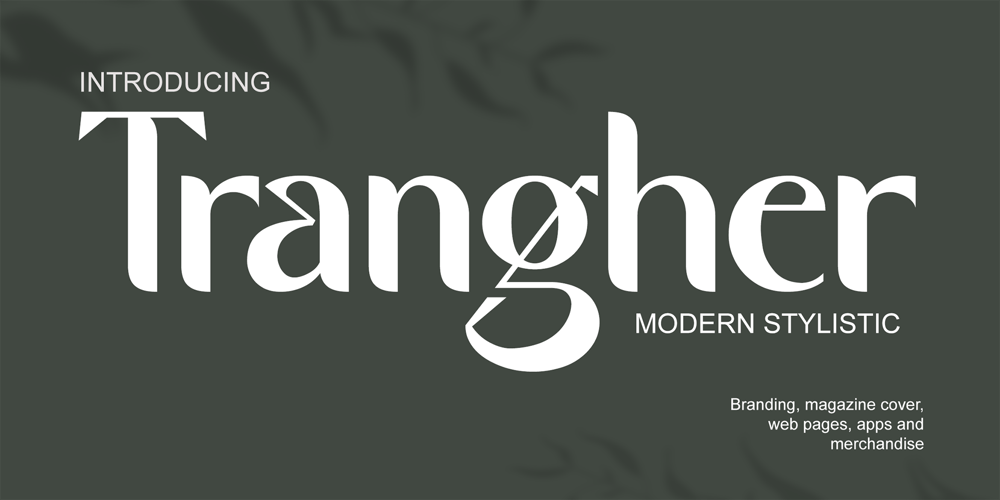
Trangher Font Family was designed by Heri Imanudin and published by Krafted. Trangher contains 1 styles and family package options. If you’re after a font that instantly catches the eye and makes your brand memorable, stylistic fonts are the way to go. Introducing Trangher – A Modern Stylistic Font.Whether you’re working on a magazine cover, a web page, or tackling a full rebranding project, Trangher can take your design to a higher level. Check it out and see the difference that a great font can make!What you’ll get: Multilingual & Ligature Support Full sets of Punctuation and Numerals Compatible with: Adobe Suite Microsoft Office KeyNote Pages Software Requirements: The fonts that you’ll receive in the pack are widely supported by most software. In order to get the full functionality of the selection of standard ligatures (custom created letters) in the script font, any software that can read OpenType fonts will work. We hope you enjoy this font and that it makes your branding sparkle! Feel free to reach out to us if you’d like more information or if you have any concerns.